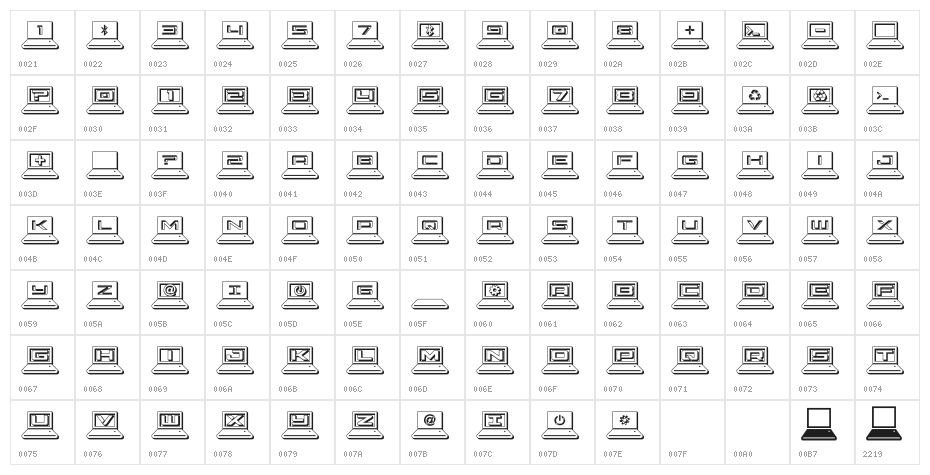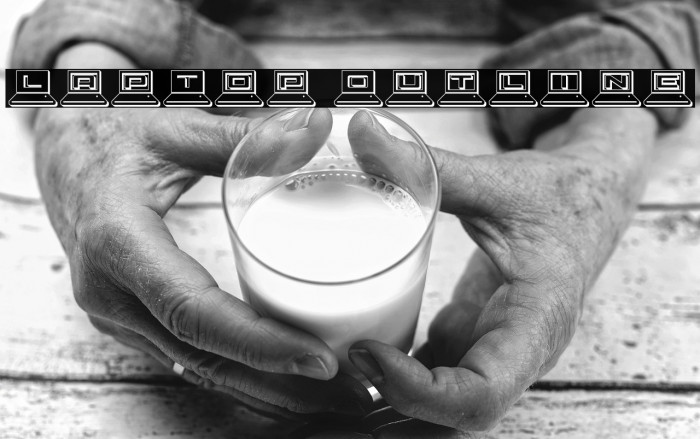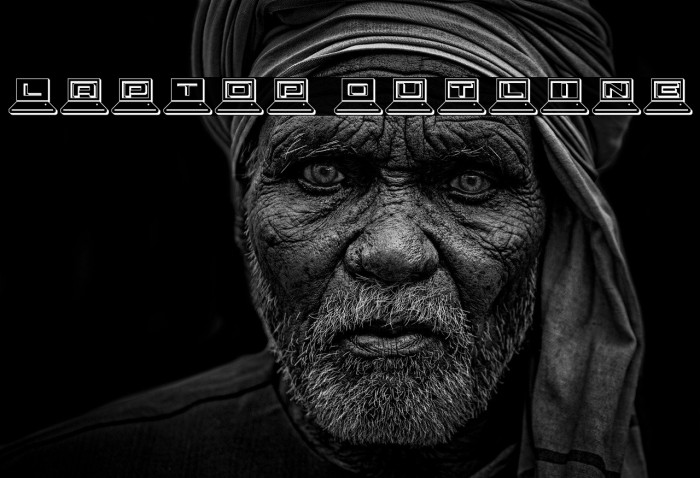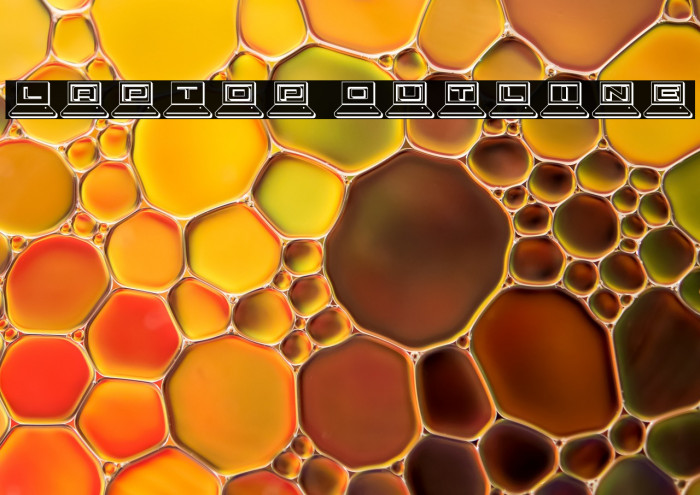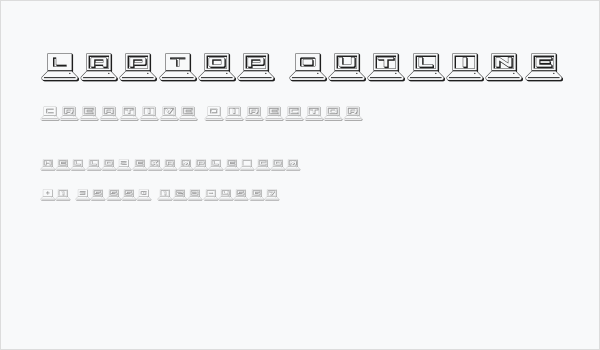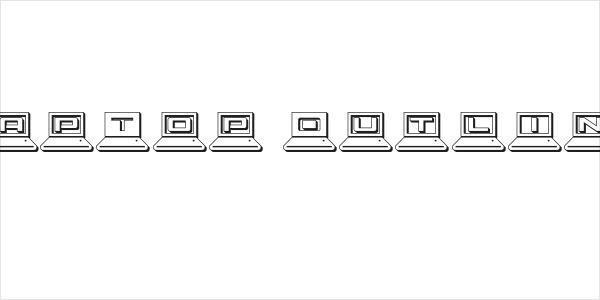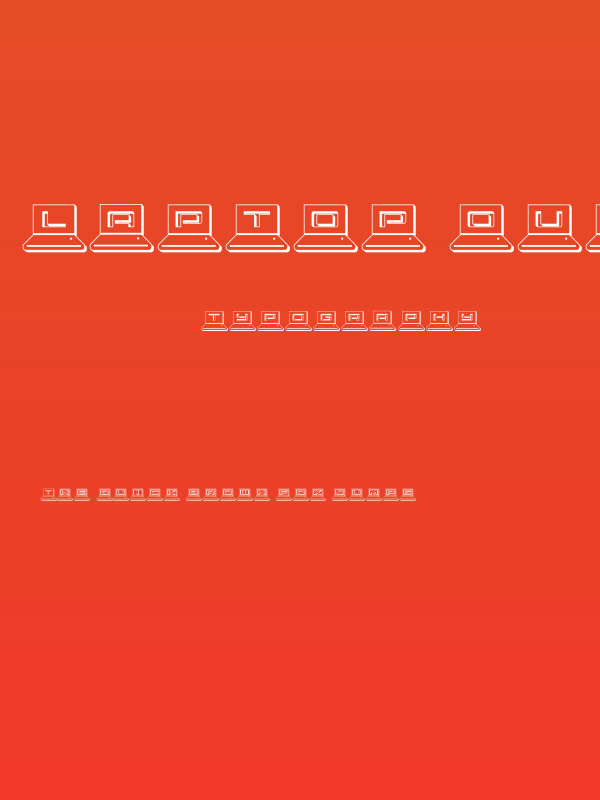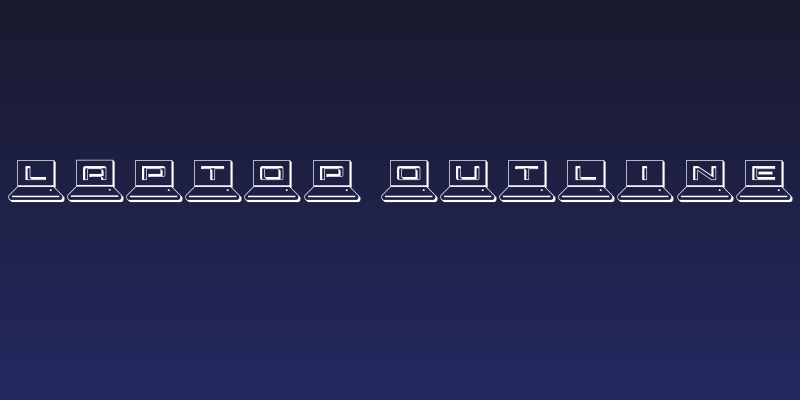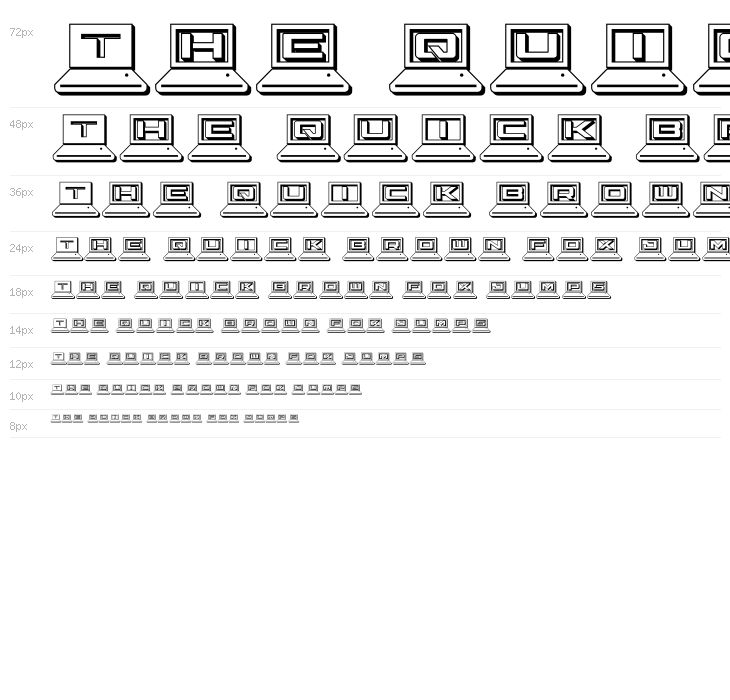
LapTop Outline Font
LapTop Outline Description
This font features a unique design where each character is encased within an outline resembling a laptop screen. The letters and numbers are bold and geometric, providing a modern and tech-inspired aesthetic. The outline adds a decorative touch, making it stand out for digital-themed projects. The characters are uniformly spaced, ensuring readability while maintaining a distinct style. The font's playful yet structured appearance makes it ideal for creative uses, especially in technology-related contexts.
| Proposed Projects | Ideal for tech-themed posters, digital marketing materials, educational tools, and video game graphics. |